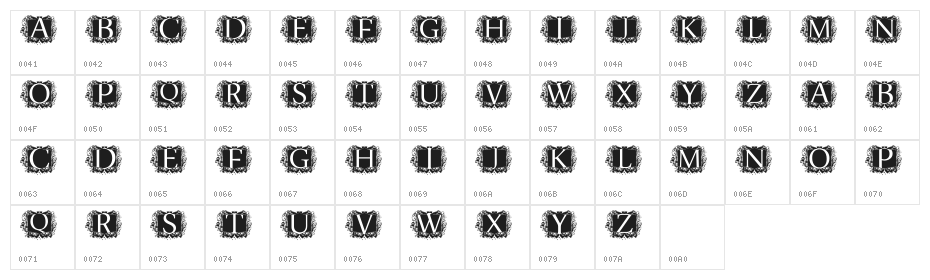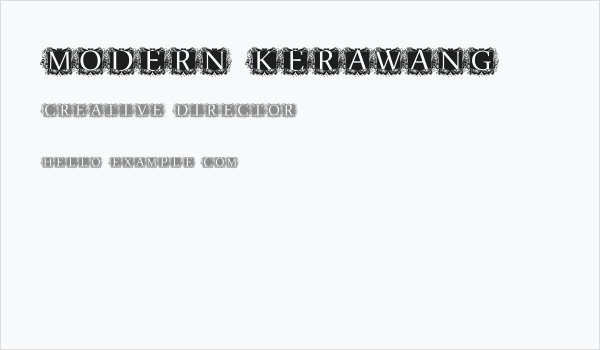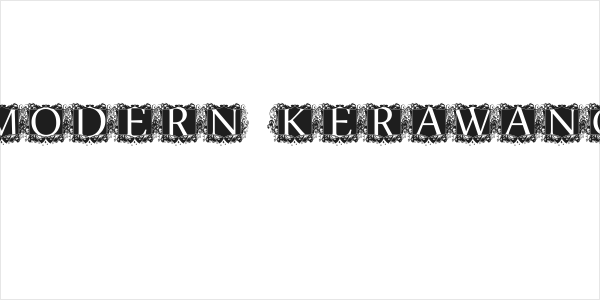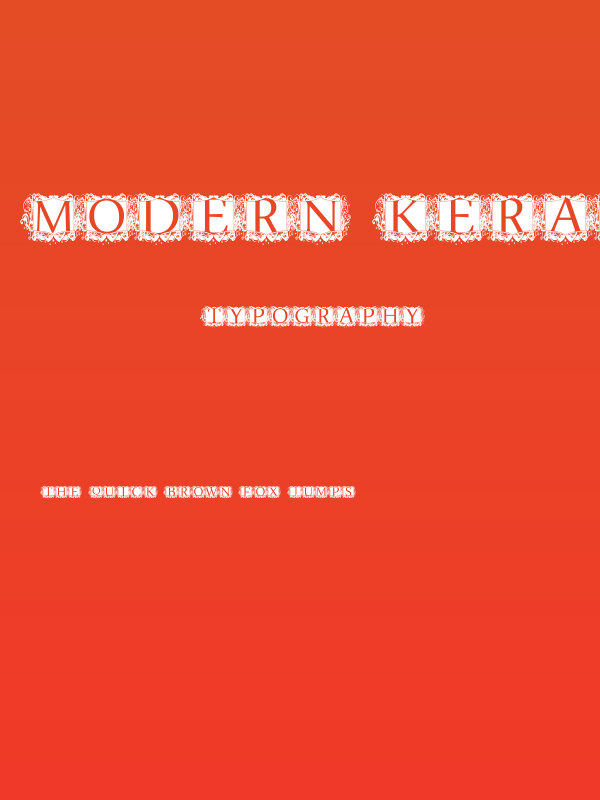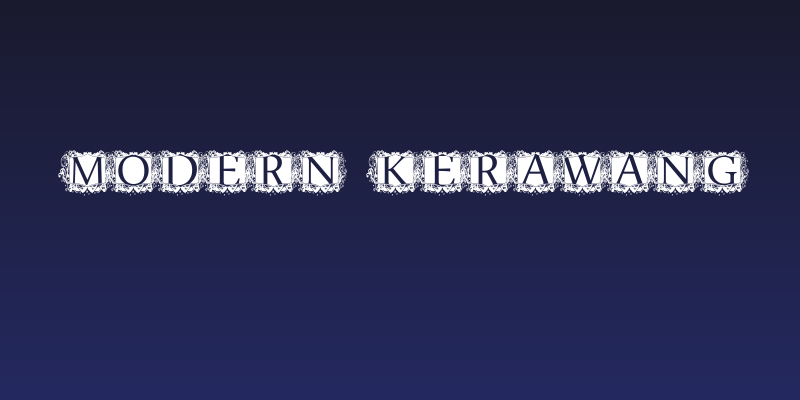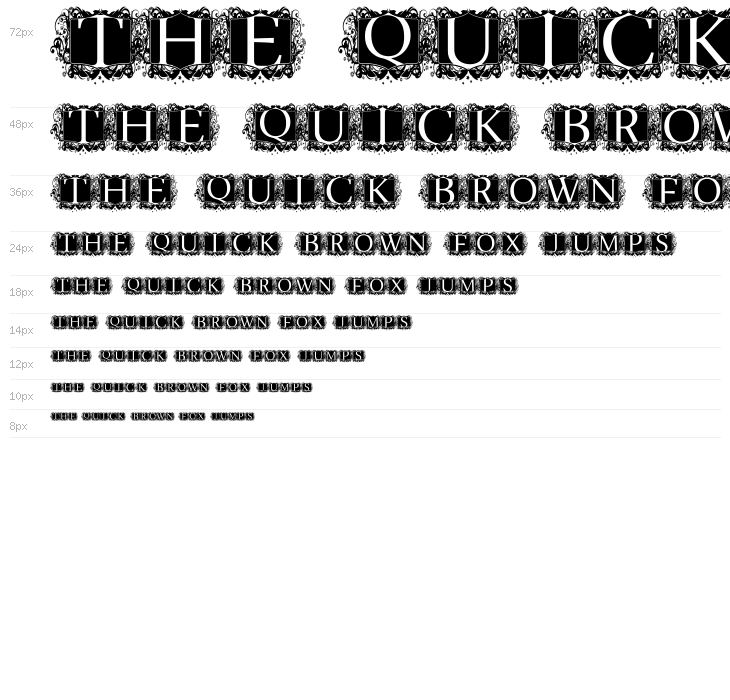
modern kerawang Font
modern kerawang Description
This font features a decorative and intricate design, with each character enclosed in a detailed ornamental frame. The letters themselves are bold and uppercase, standing out against the elaborate background. The style is reminiscent of traditional craftsmanship, with a modern twist that makes it suitable for eye-catching displays. The contrast between the bold letters and the ornate frames creates a striking visual effect, making it ideal for projects that require a touch of elegance and sophistication.
| Proposed Projects | Ideal for wedding invitations, luxury branding, event posters, and artistic projects that require a decorative touch. |